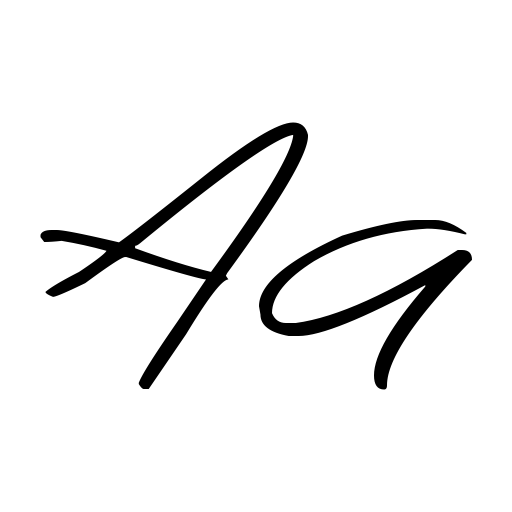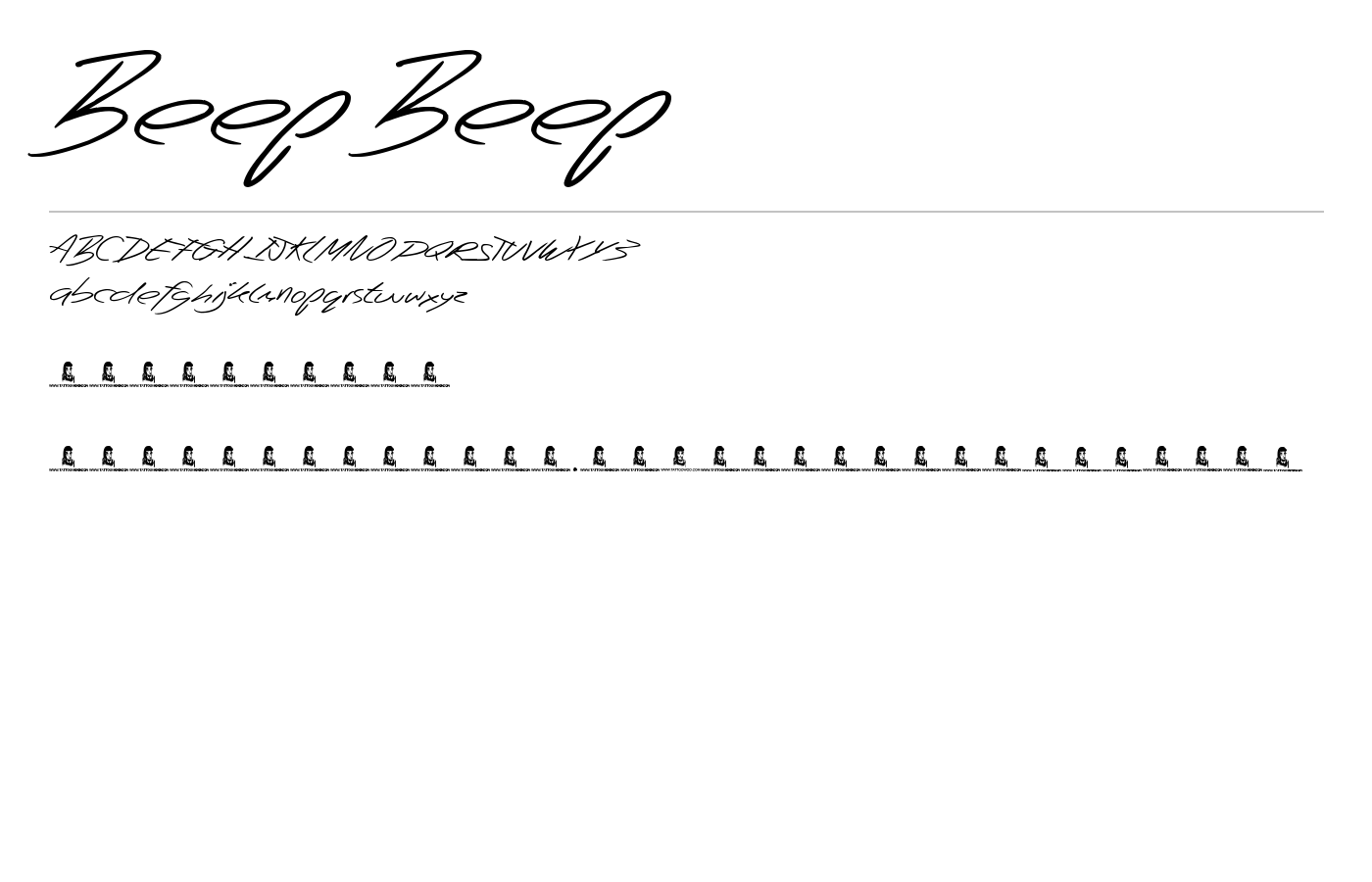
Beep Beep Font is a lively and expressive script font characterized by its fluid, handwritten style and energetic strokes. Its slender, slightly slanted letterforms evoke a sense of motion and personality, making it ideal for creative projects, casual branding, and informal headlines where a dynamic, personal touch is desired. This font works best in playful and modern contexts, adding a unique flair to logos, posters, and social media graphics.
Beep Beep Font
About Beep Beep Font